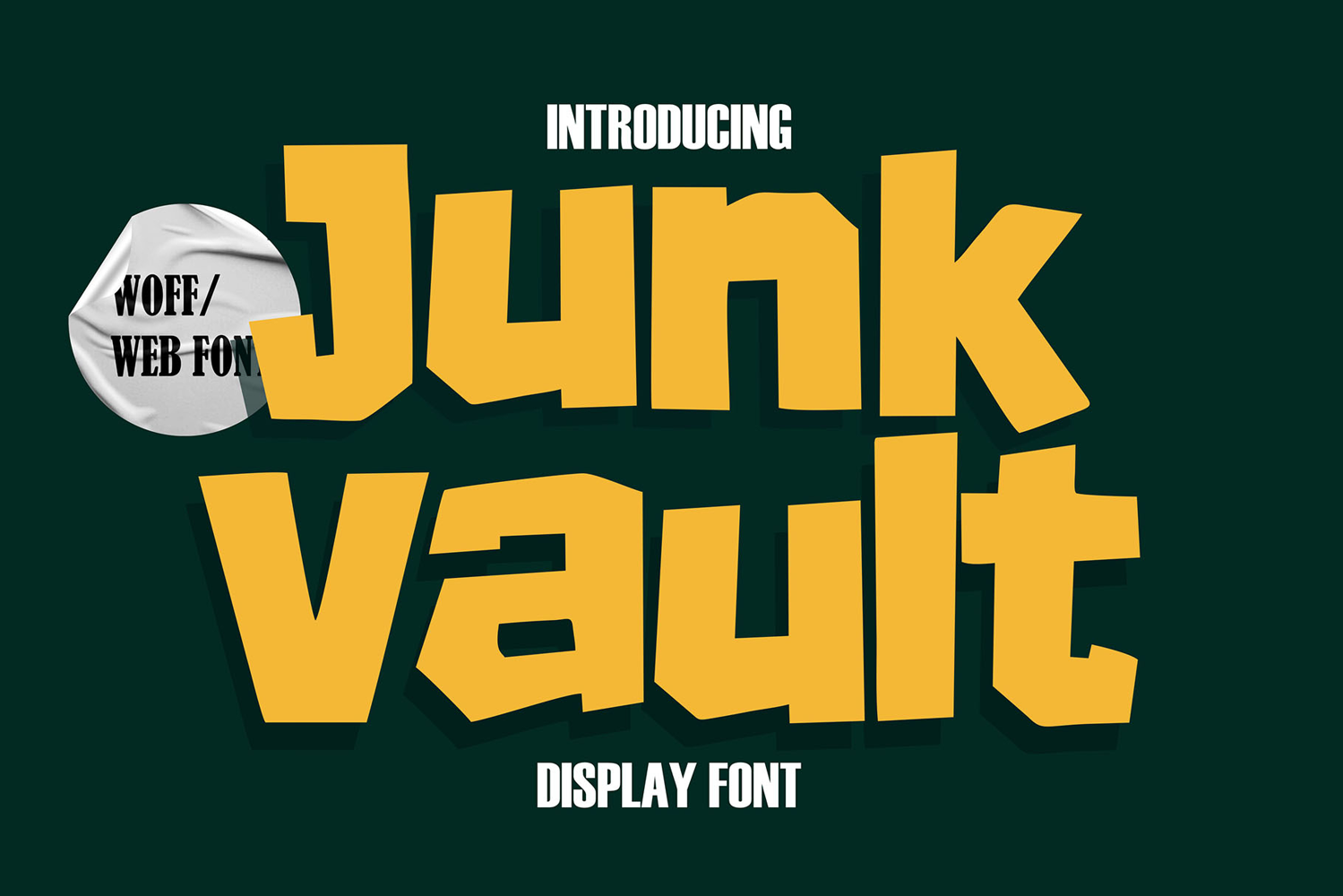
Junk Vault | Bold and Chunky Web Display Font
Junk Vault brings boldness and playfulness directly to your screen. This web-optimized display font features a fun and energetic aesthetic that translates beautifully across all devices. Perfect for creative landing pages, hero headlines, e-commerce banners, or any online platform that needs visual personality and vibrancy.
Its heavy shapes and irregular forms give it a handcrafted and expressive look — perfect for designers who want to break from clean, minimal styles and embrace a fun, casual tone. The font is fully optimized for the web and supports a wide range of characters for multilingual usage.